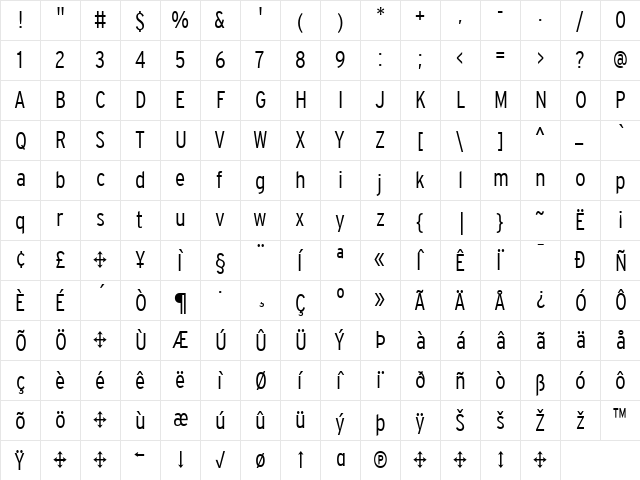
InterstateLightCondensed Regular Font Preview
Design Context for InterstateLightCondensed Typeface
InterstateLightCondensed is a composed and adaptable typeface that performs quietly and consistently across a wide range of design contexts. The delicate stroke weight brings airiness and refinement to layouts. The condensed width makes it efficient for tight spaces without sacrificing legibility.